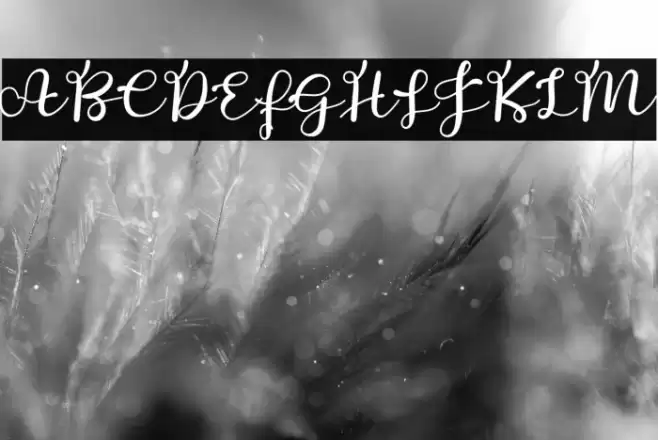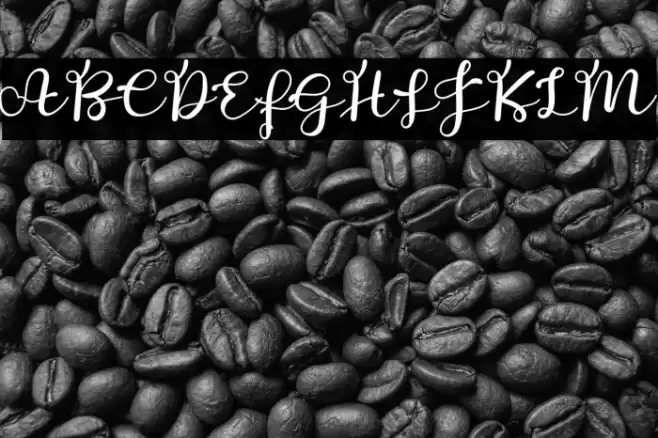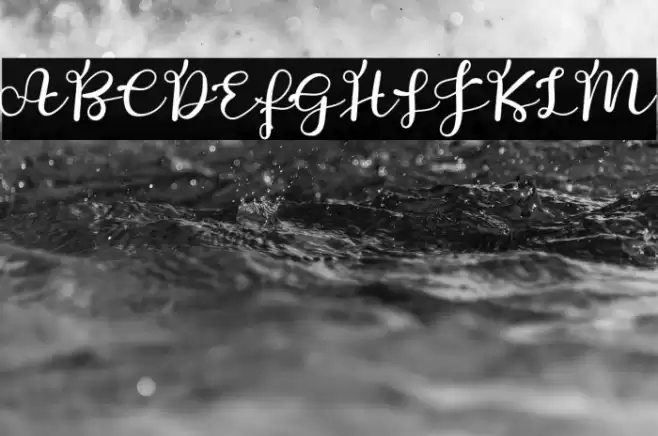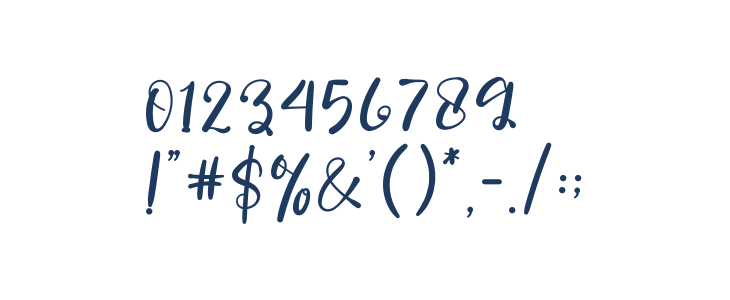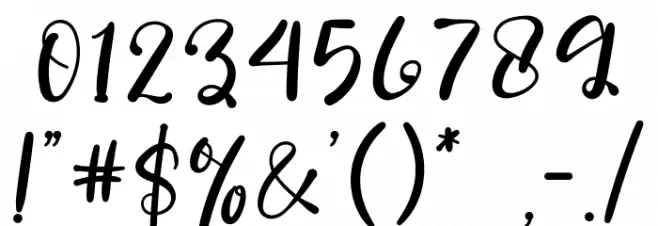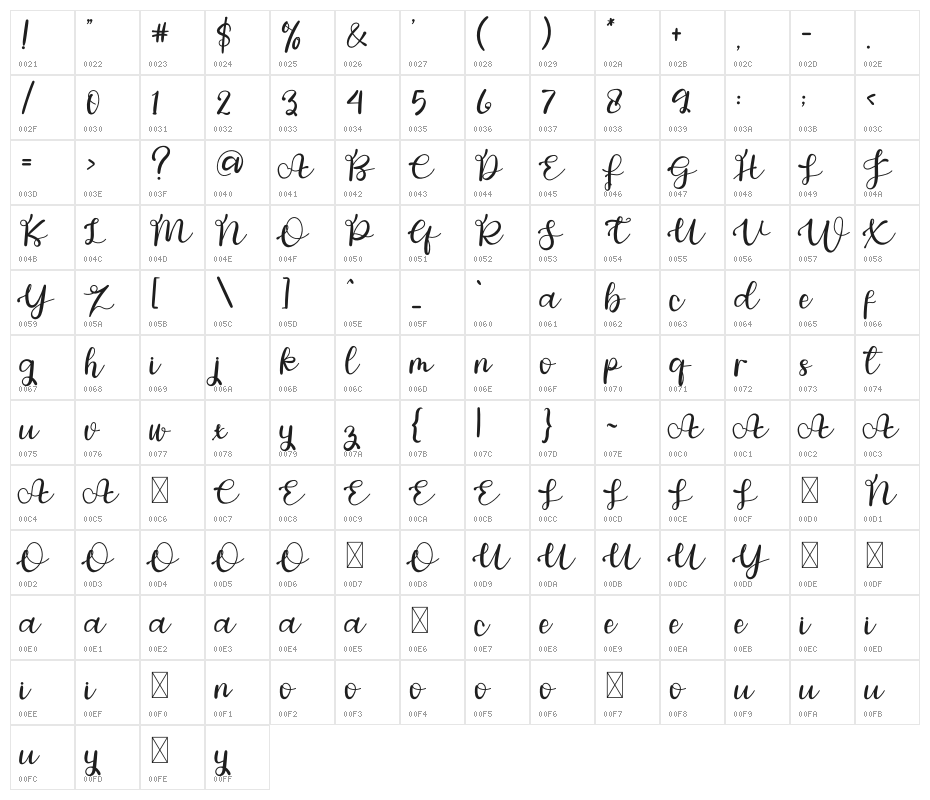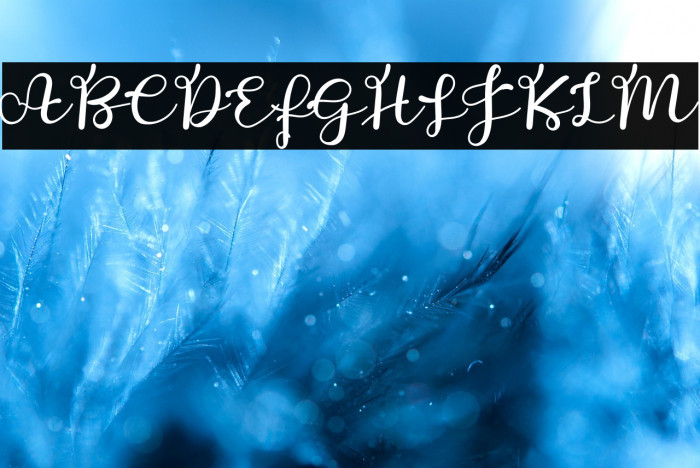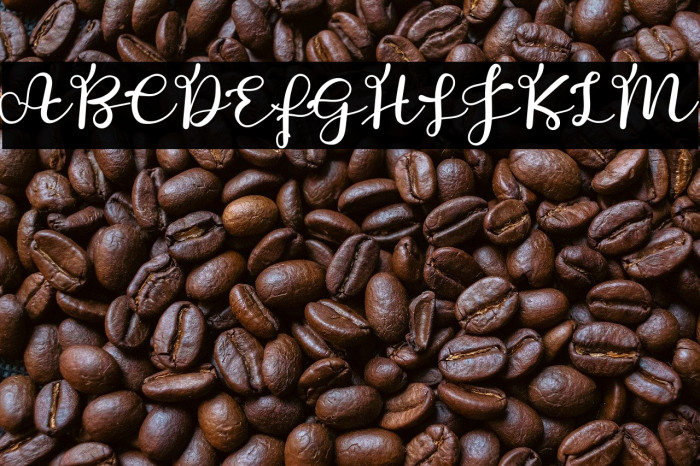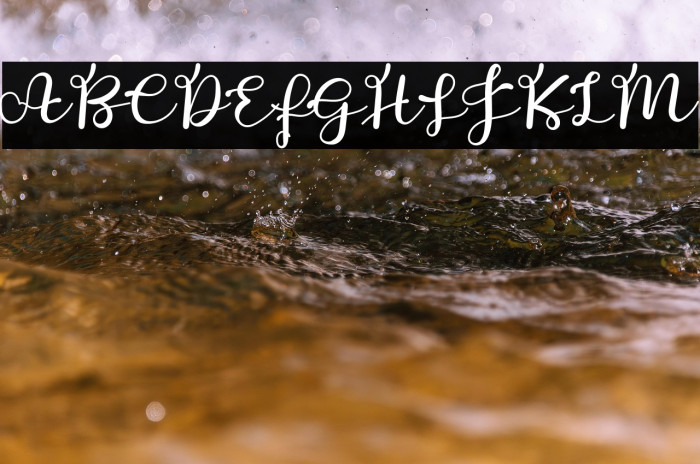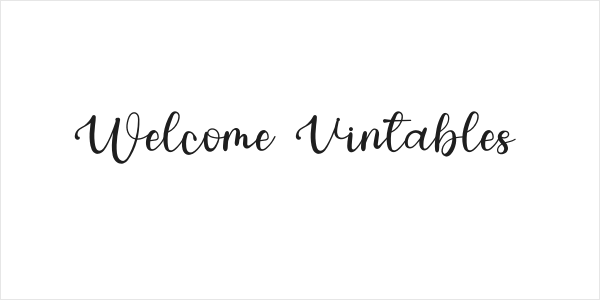
Welcome Vintables Font
Welcome Vintables Description
This font features a charming and whimsical script style, characterized by its flowing, interconnected letters that mimic the fluidity of handwriting. The uppercase letters are elegantly looped, while the lowercase letters maintain a consistent rhythm, adding a playful yet sophisticated touch. The numerals and special characters are crafted with the same attention to detail, ensuring a cohesive appearance across all text. The strokes are moderately thick, providing a balanced contrast that enhances readability without sacrificing style. This font is perfect for projects that require a personal, inviting feel.
A whimsical script font with flowing, interconnected letters and moderate stroke contrast from Uncategorized fonts.
- Proposed Projects: Ideal for wedding invitations, greeting cards, branding projects, and social media graphics.
- Use Case: Logos, Invitations, Social Media